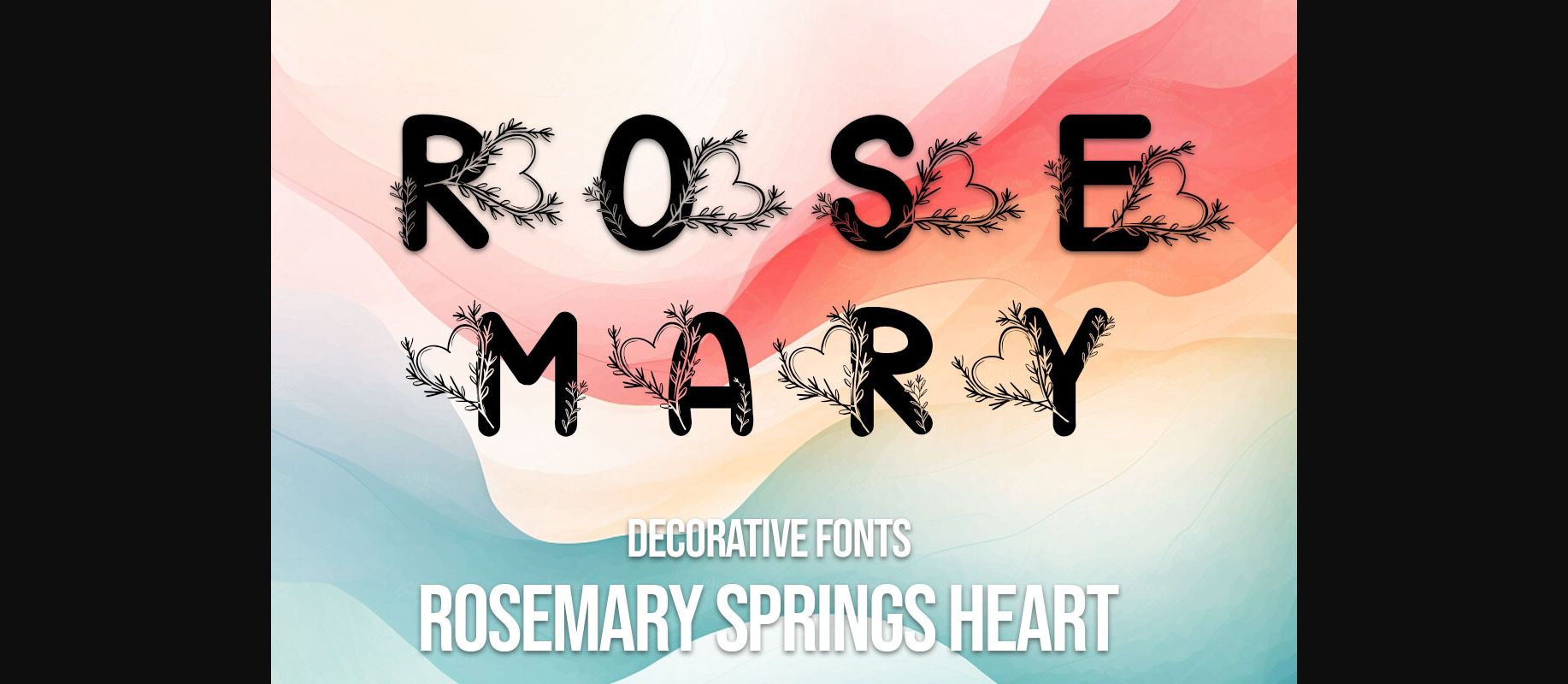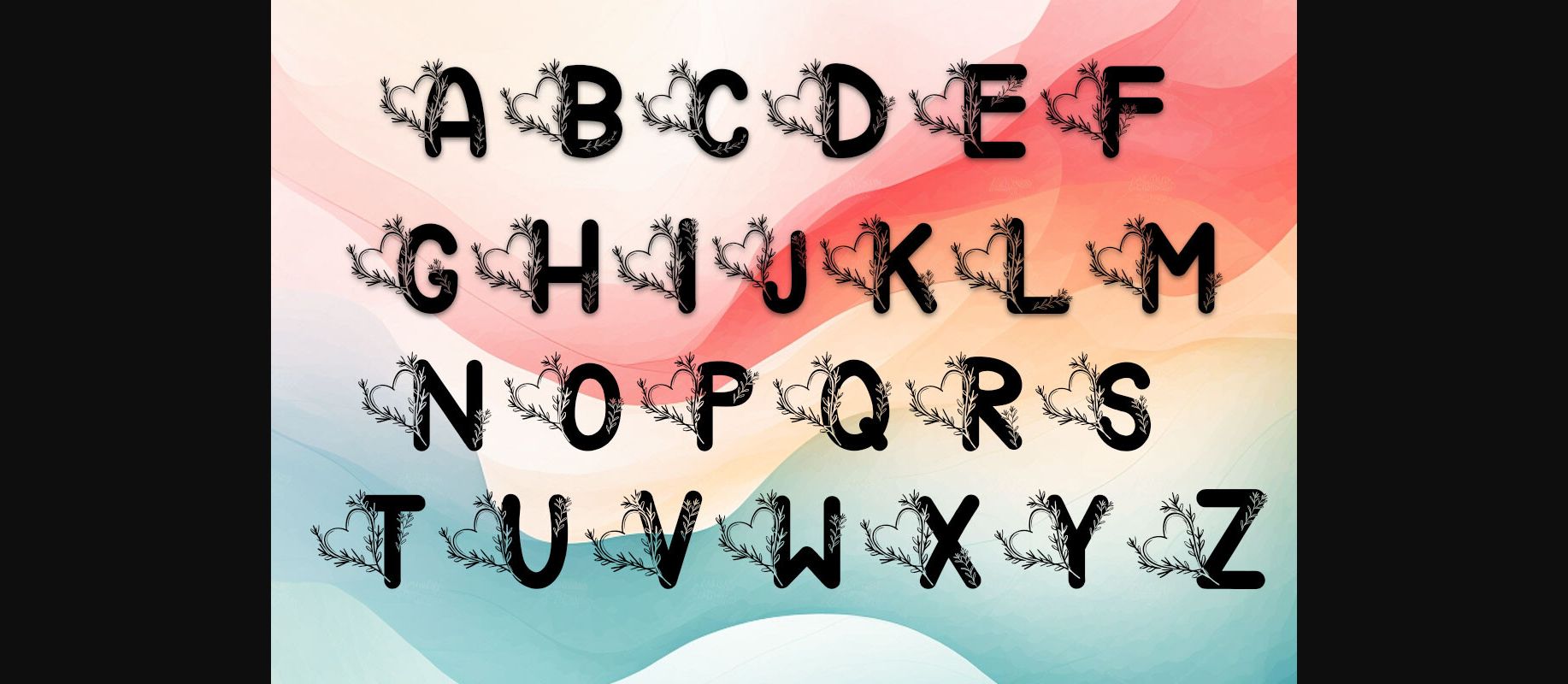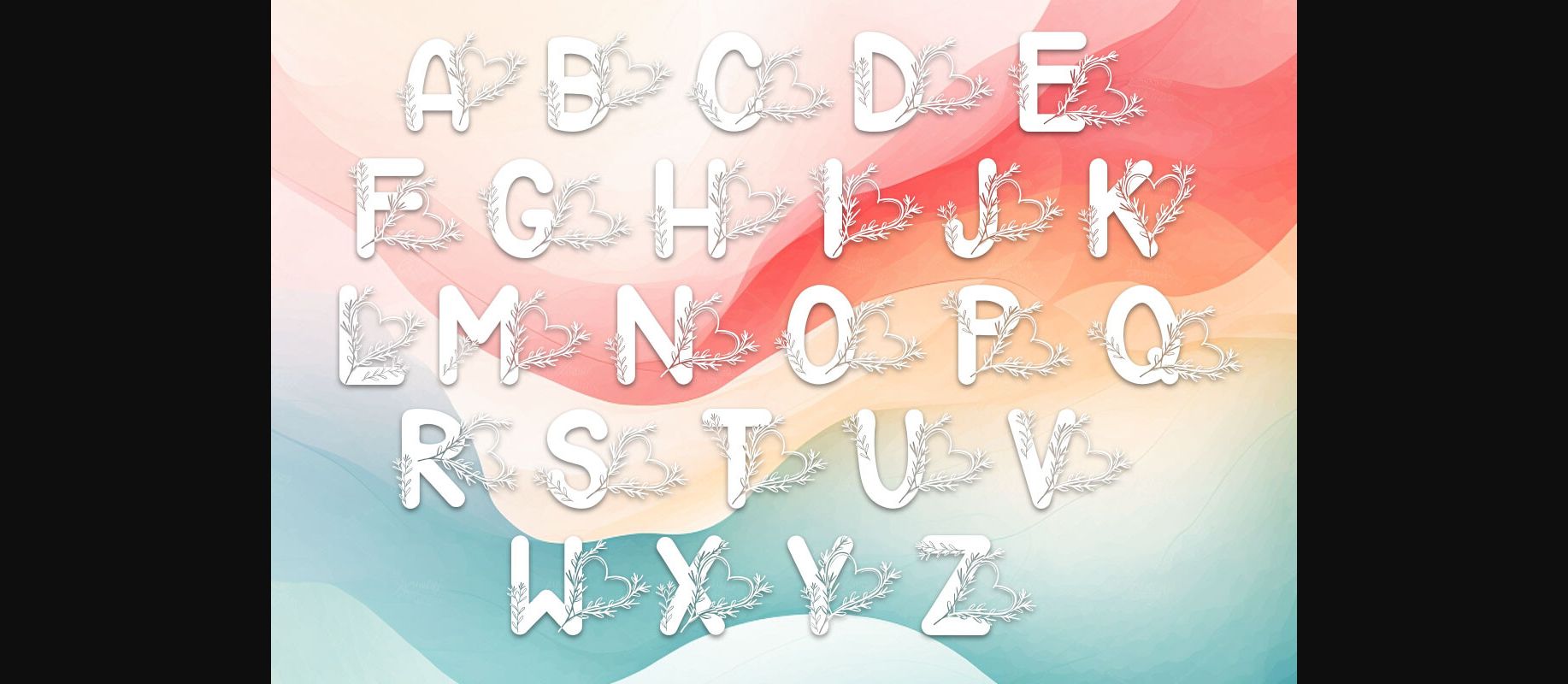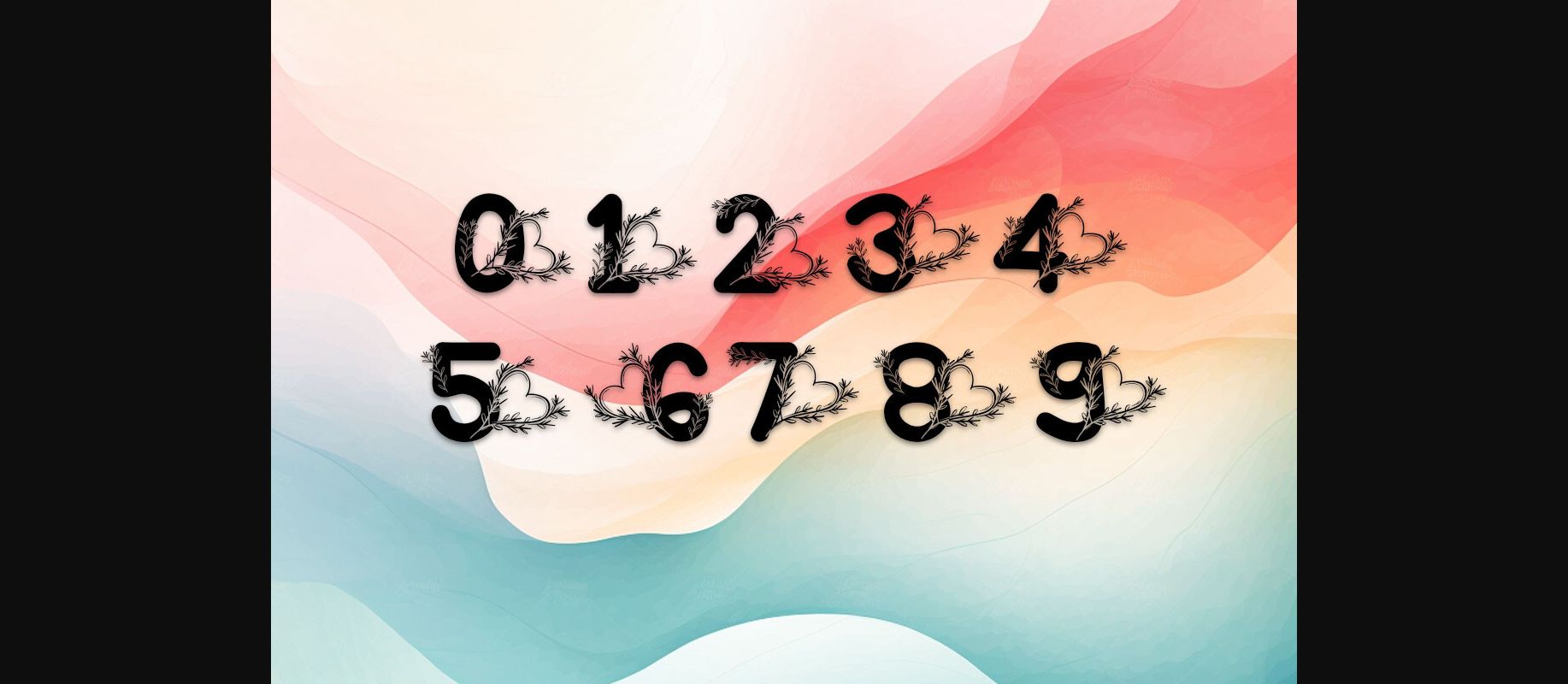
Rosemary Springs Heart Font
About Rosemary Springs Heart Font
Introducing our captivating ‘Rosemary Springs Heart Decorative Fonts’—an intricate design that intertwines heart-shaped rosemary stems into 62 meticulously crafted characters. This collection includes 26 uppercase letters, 26 lowercase letters, and a set of numbers 0-9. Each letter embodies the graceful allure of rosemary, symbolizing a delicate expression of love. Combine uppercase and lowercase letters to convey a unique message of affection. Perfect for infusing love-themed designs with natural elegance and heartfelt sentiments, this font set is your creative conduit for communicating love beautifully